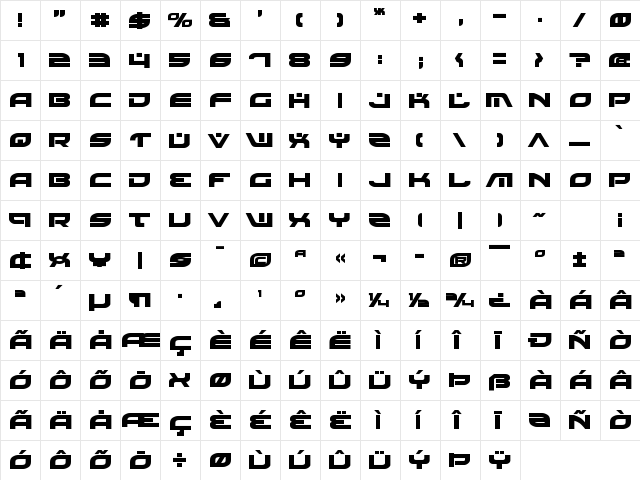
Battlefield Bold Bold
Design Context for Battlefield Bold Typeface
Battlefield Bold is a composed and adaptable typeface that performs quietly and consistently across a wide range of design contexts. The heavy weight commands attention and anchors typographic hierarchies.